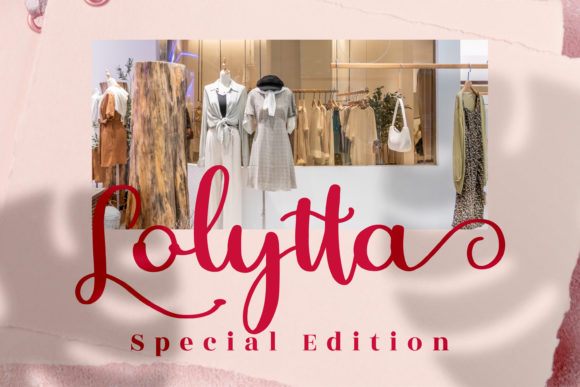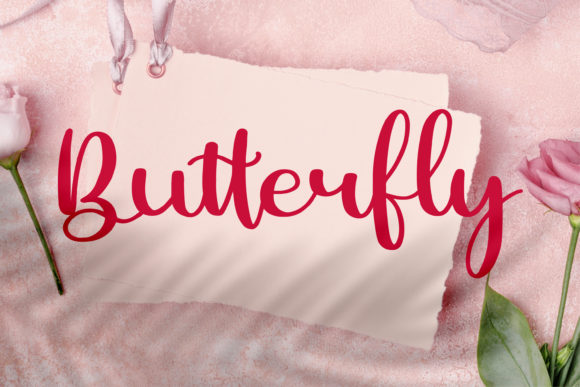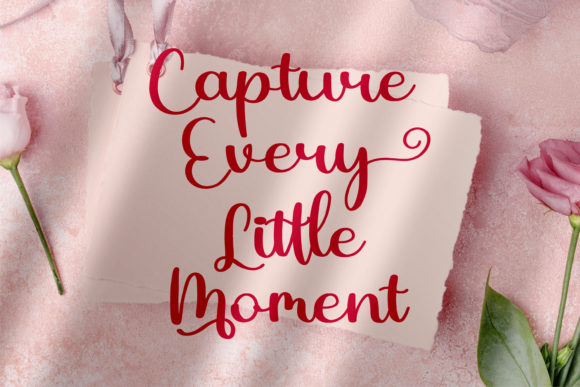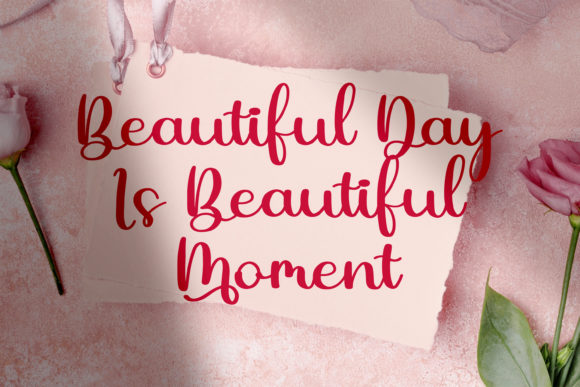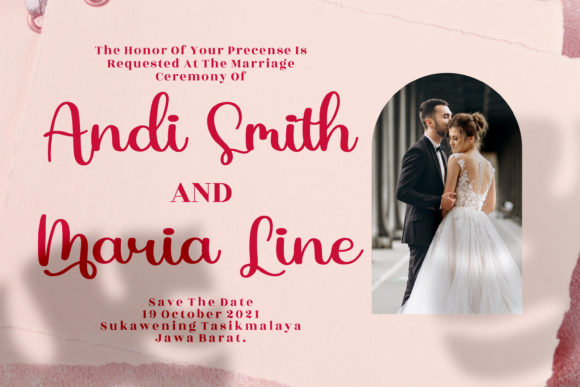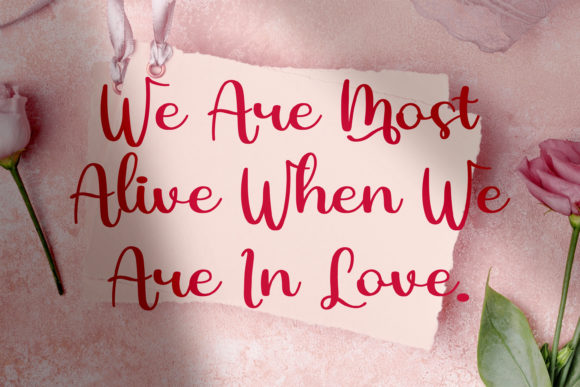
Introduction to Lolytta Renda Font
Lolytta Renda is a chic, refined script font that emanates sophistication and elegance.
Its stylish alternates and ligatures make this font the perfect match for any project This font is PUA encoded which means you can access all of the glyphs and swashes with ease.